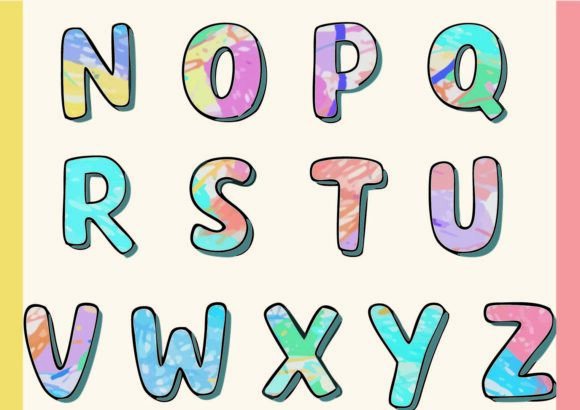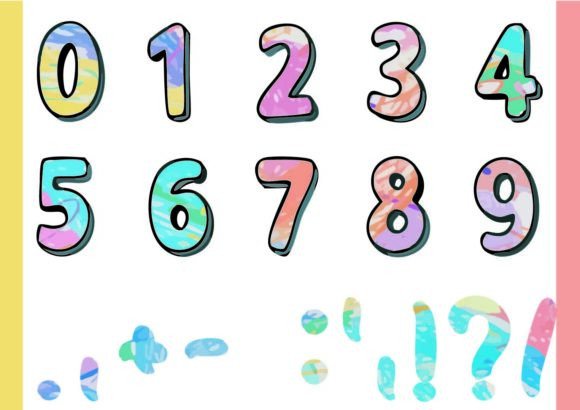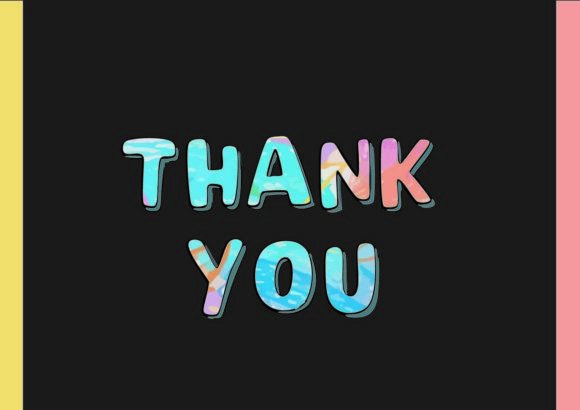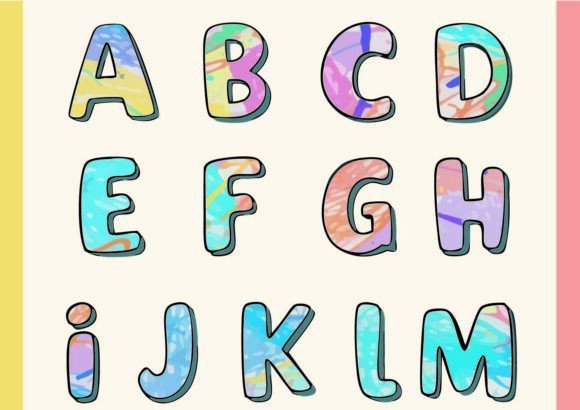
Introduction to Raelyn Font
Raelyn is a color font or chromatic font.
Every single glyph has a different set of colors A colorful heaven if you will.